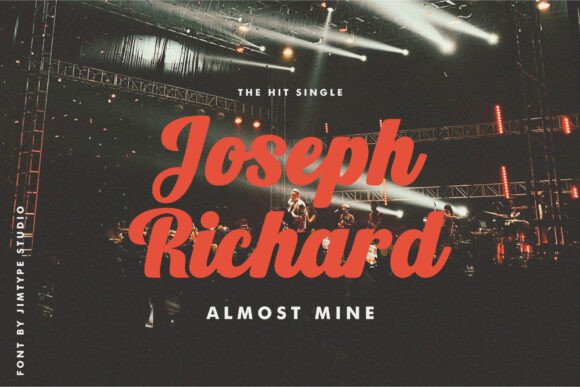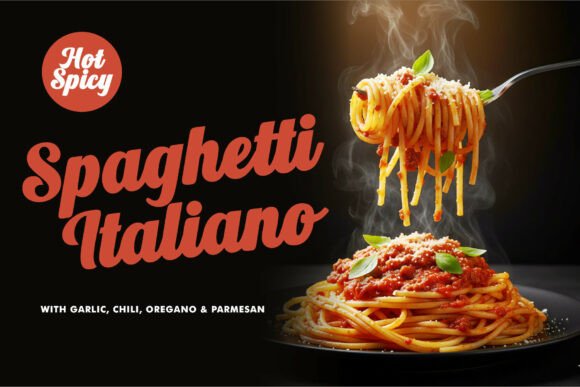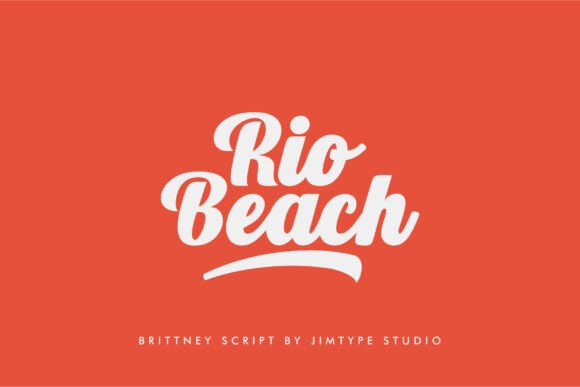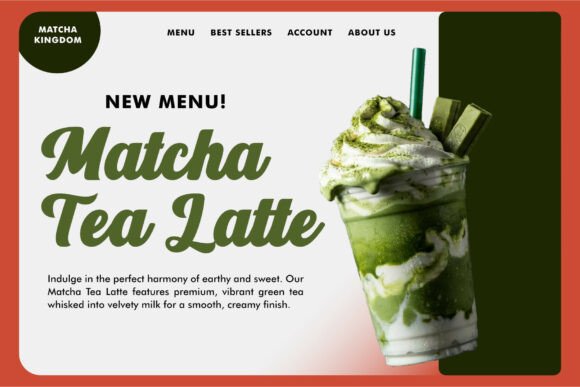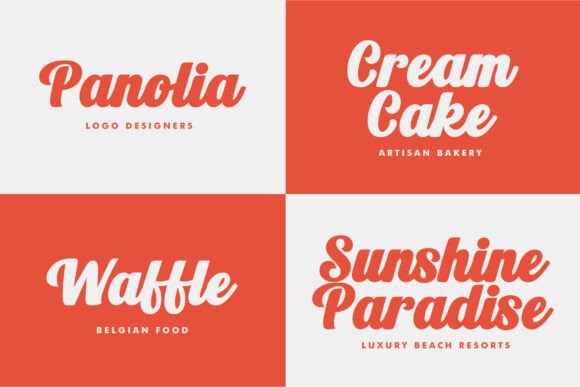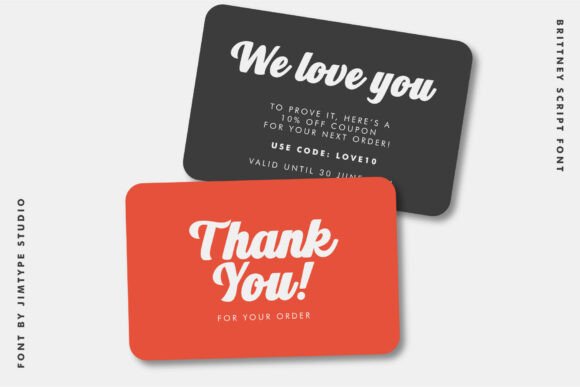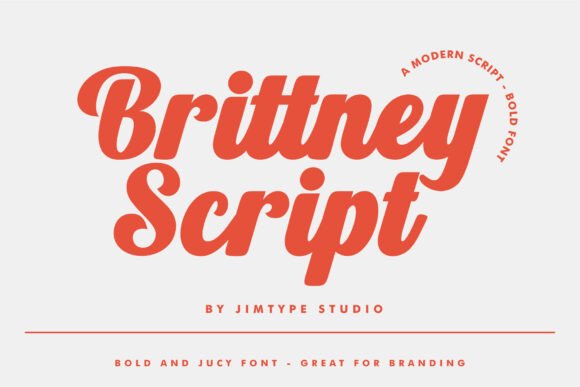
Brittney Script Font: A Bold and Juicy Powerhouse for Creative Designs
In the world of typography, a good font can make all the difference in creating a lasting impression. For designers and crafters looking for a bold and eye-catching script font, Brittney Script is an excellent choice. This “bold and juicy” powerhouse brings confidence and high visibility to script typography, making it perfect for a variety of creative projects.
Key Features of Brittney Script Font
Brittney Script font features thick, rounded strokes that give it a friendly and approachable feel. The connected flow of the letters makes it incredibly easy to read at any scale, whether it’s used for a logo design, social media ad, or packaging label. The font’s bouncy, energetic rhythm feels approachable and fun, making it an excellent choice for designs that require a playful touch.
Ideal Uses for Brittney Script Font
Brittney Script font is a fantastic choice for food packaging, lifestyle branding, and casual apparel where personality is paramount. The font’s bold and juicy style makes it perfect for designs that require a high level of visibility and confidence. It’s also an excellent choice for social media ads, logo designs, and creative merchandise, where a modern and punchy look is desired.
Pairing Brittney Script Font with Other Fonts
To create a modern and punchy look, pair Brittney Script font with a simple, wide-set sans-serif font. This combination creates a beautiful contrast between the bold, script font and the clean, sans-serif font. The result is a visually appealing design that’s perfect for social media ads, logo designs, and creative merchandise.
Brittney Script font offers a range of benefits for designers and crafters. Its bold and juicy style makes it perfect for creating eye-catching designs that grab attention. The font’s friendly and approachable feel makes it suitable for a wide range of projects, from food packaging to casual apparel. Additionally, the font’s PUA encoding makes it easy to use and accessible to everyone.
Tips for Using Brittney Script Font
- Use Brittney Script font for headlines and titles to grab attention and create a lasting impression.
- Pair Brittney Script font with a simple, wide-set sans-serif font to create a modern and punchy look.
- Use Brittney Script font for social media ads, logo designs, and creative merchandise to create a bold and eye-catching design.
In conclusion, Brittney Script font is a bold and juicy powerhouse that brings confidence and high visibility to script typography. Its thick, rounded strokes and friendly, connected flow make it incredibly easy to read at any scale. With its PUA encoding and versatility, Brittney Script font is an excellent choice for designers and crafters looking for a bold and eye-catching script font. Whether it’s used for food packaging, lifestyle branding, or casual apparel, Brittney Script font is sure to make a lasting impression.
So, if you’re looking for a font that can add a touch of personality and fun to your designs, look no further than Brittney Script font. Its bold and juicy style, combined with its ease of use and accessibility, make it an excellent choice for a wide range of creative projects.